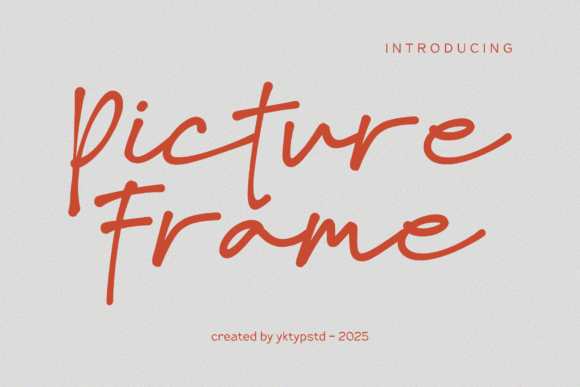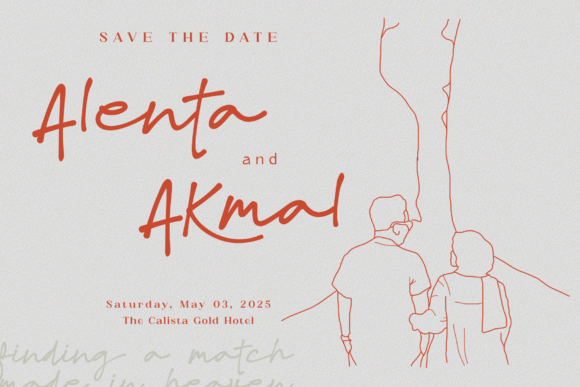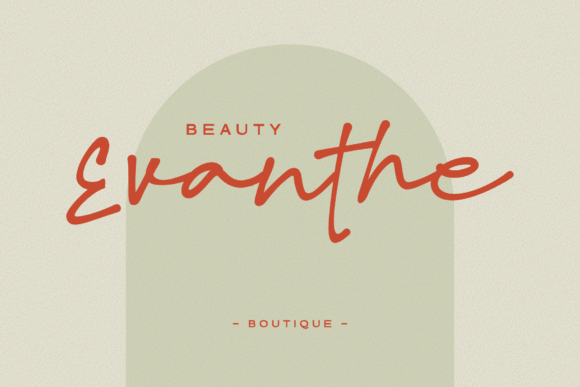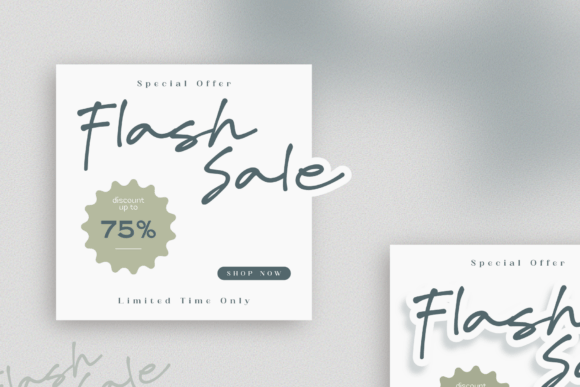
Picture Frame Font
About the Picture Frame Font
Explore the possibilities with Picture Frame Font, a font that offers both beauty and functionality. Introducing Capture Frame – handwritten script font effortlessly distills elegance and charm. Capture Frame is fitting for a multitude of occasions. It speaks volumes on wedding invitations, adds a personal touch to greeting cards, uplifts titles, and tastefully punctuates labels. It enriches restaurant menus and leaves a lasting impression embedded in logos. From fashion branding to inspirational quotes, to song lyrics or stationery, Capture Frame brings an organic essence, letting your text bloom with natural allure. With Capture Frame, your typography effortlessly communicates sophistication.